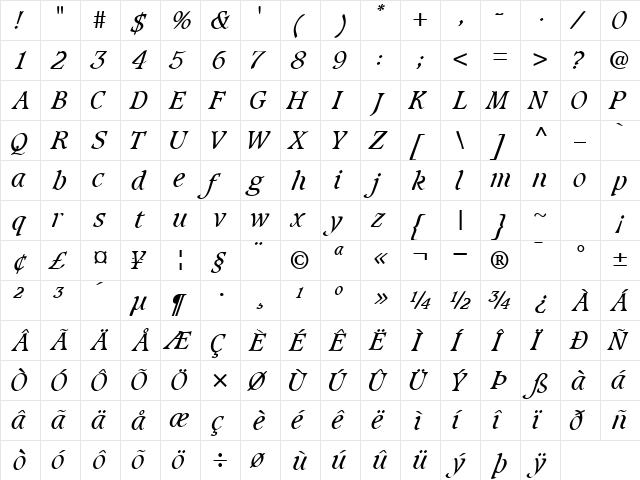
GrammateusSSK Italic Font Preview
GrammateusSSK Italic
Design Context for GrammateusSSK Typeface
GrammateusSSK offers clean, dependable letterforms without strong stylistic allegiance, making it a practical choice for designers who need flexibility. The dynamic lean of this cut emphasises speed and emphasis in any layout.
Pro Tip: Try GrammateusSSK for annotation and caption copy alongside an upright companion — the contrast in angle creates a dynamic but ordered typographic system.